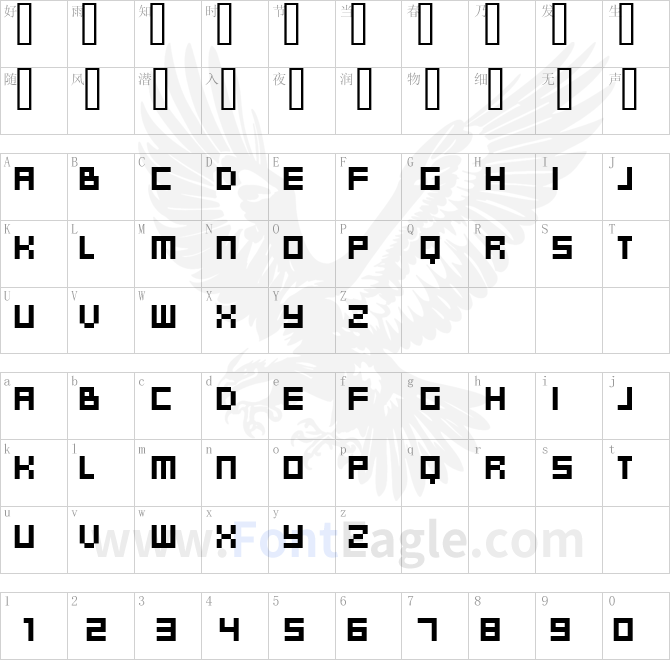
- Font name:FFF Planeta
FFF-Planeta is a great font, widely used in graphic design, single-page menu design, poster design and other fields, and is deeply loved by designers.FFF-Planeta download.